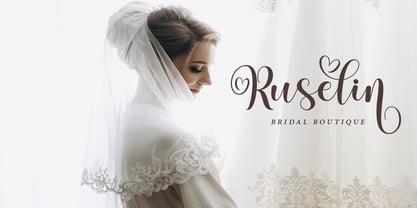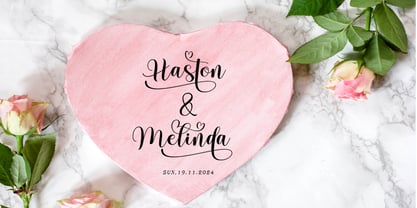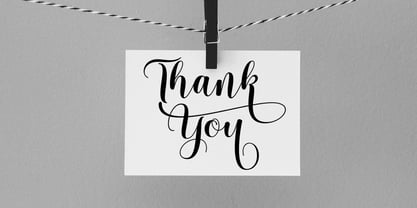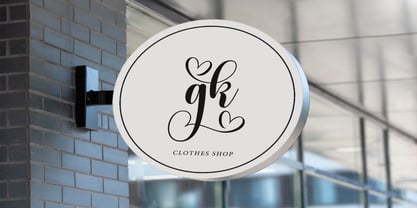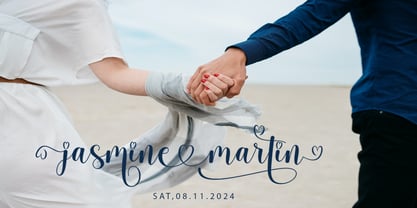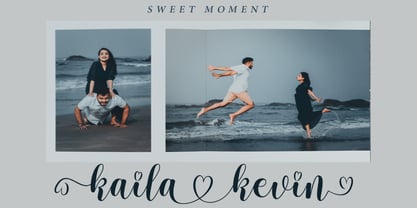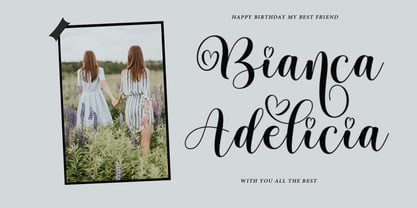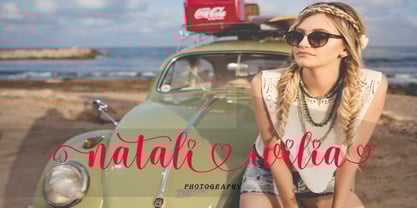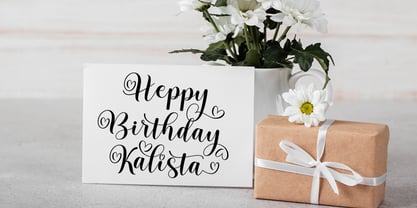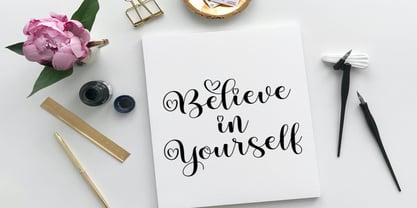
Kaila Kevin
by Tertoecreative
The Kaila Kevin Font Family was designed by khaidir and published by Tertoecreative. Kaila Kevin contains 1 styles. More about this family
Kaila Kevin font is fully adapted to modern needs. It performs well on both screen and in print, appears natural in body text, and its design avoids looking archaic. The typeface offers weights from Regular to Extrabold, with a fully realized gradation of optical sizes. Text styles are suited for small sizes, Subhead styles work best for medium sizes, and Display styles are ideal for large and extra-large applications.
Designers: khaidir
Foundry: Tertoecreative